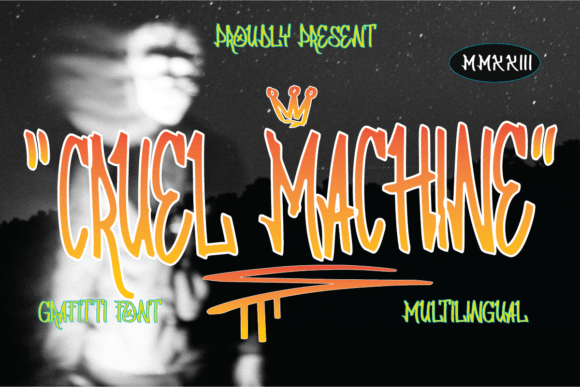
Unleash your inner artist with Cruel Machine, a remarkable graffiti font designed to ignite your creativity and elevate your designs. This simple yet captivating font exudes an upright posture, ensuring its legibility even when boldly displayed or printed on your products. Prepare to be mesmerized by the elegance of its lines and the raw power it brings to your words, making it the perfect choice for those seeking a unique and impactful aesthetic.
Crafted by the talented minds at studiohellogood, Cruel Machine is a font that effortlessly blends the essence of street art with modern typography. Its graffiti-inspired design evokes a sense of urban rebellion and authenticity, adding an edgy touch to your projects. Whether you're creating posters, logos, product labels, or social media graphics, Cruel Machine will elevate your designs to new heights.
Immerse yourself in a world of boundless creativity as you explore the limitless possibilities of Cruel Machine. Use it to design eye-catching headlines that demand attention, craft memorable logos that leave a lasting impression, or create unique and stylish apparel that reflects your individuality. The possibilities are endless, and the only limit is your imagination.
But what truly sets Cruel Machine apart is its versatility. Seamlessly adapt it to a wide range of design styles and projects, from bold and rebellious to elegant and sophisticated. Its upright position ensures clarity and readability, making it a perfect choice for display text, whether in print or digital formats. Unleash your creativity and let Cruel Machine transform your designs into stunning works of art.